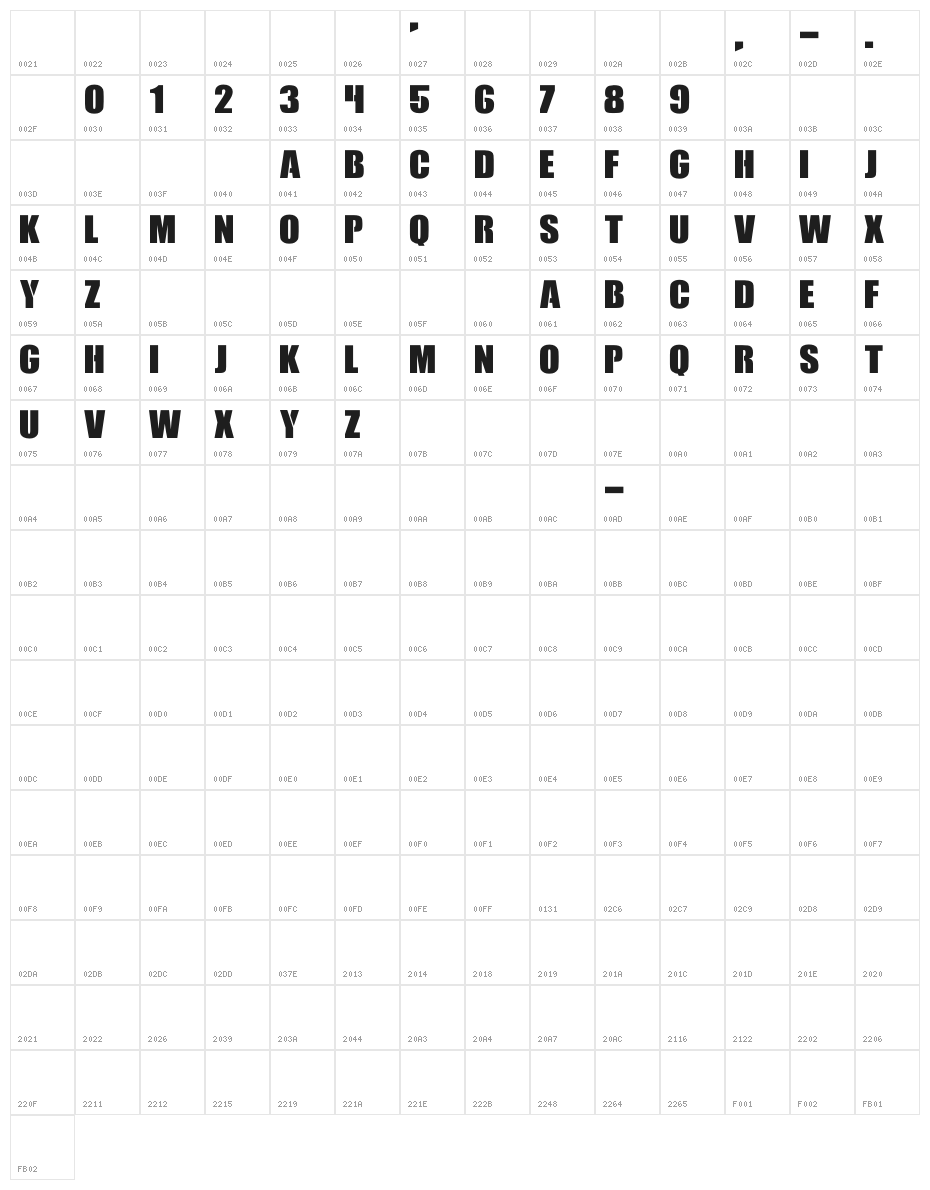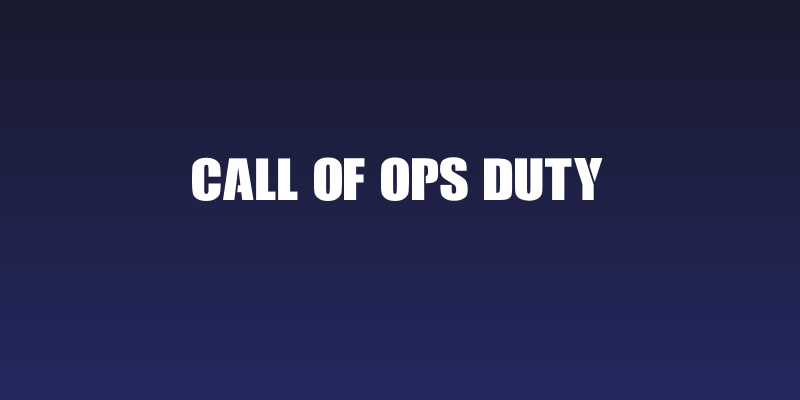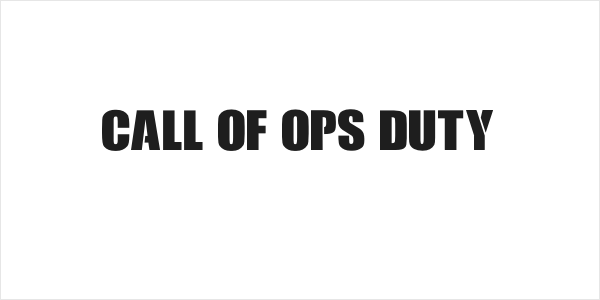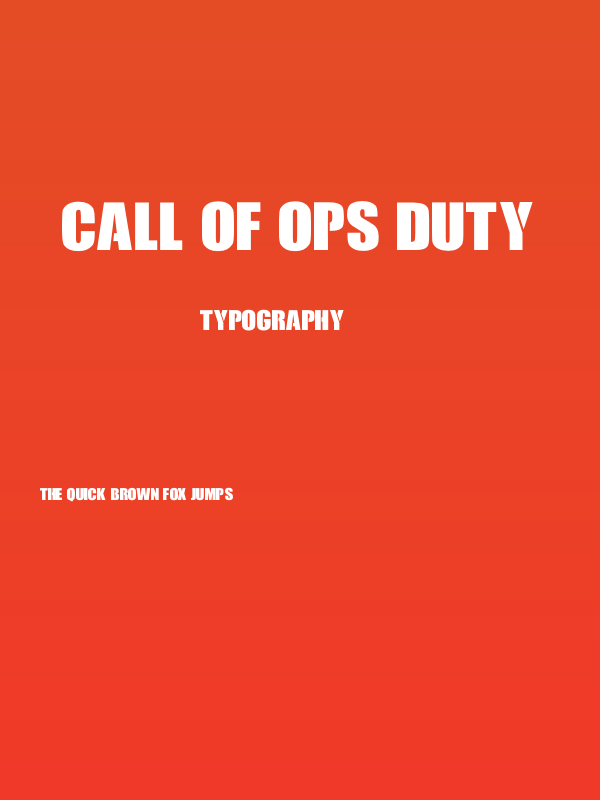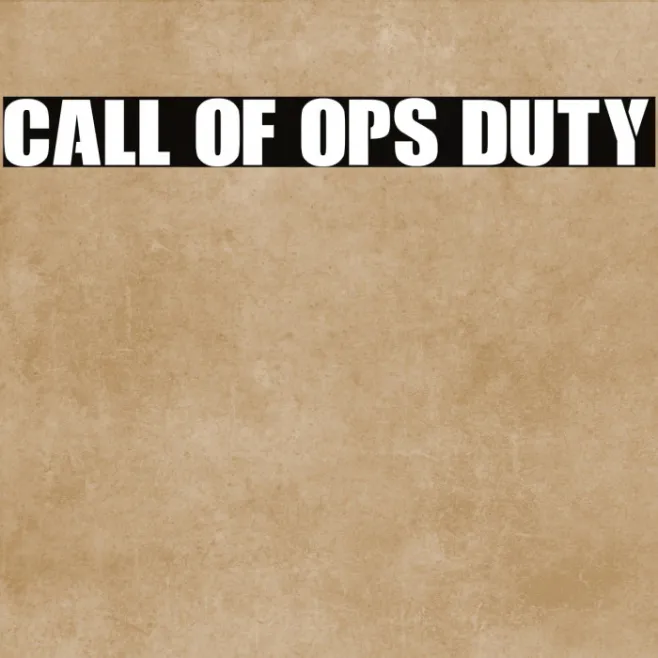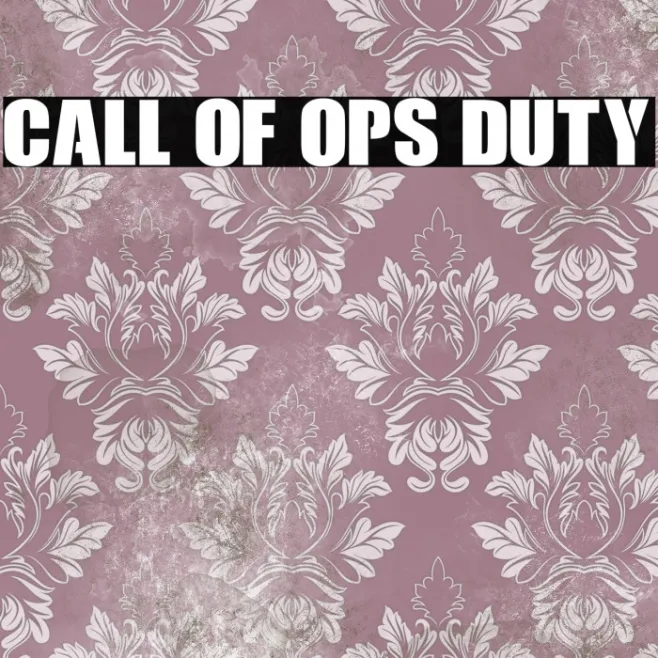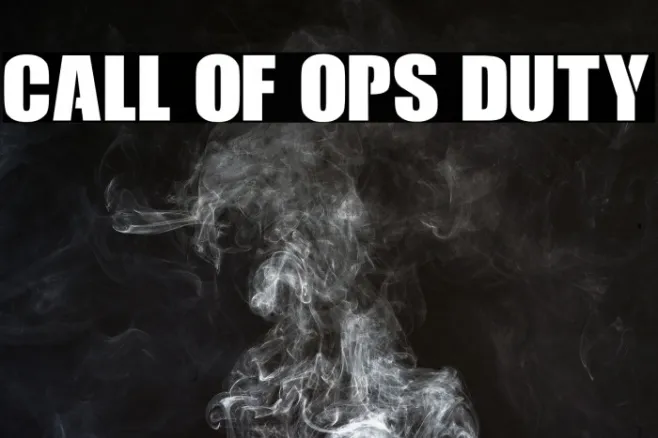
Call Of Ops Duty Font
Call Of Ops Duty Description
This font features bold, blocky characters with a strong, impactful presence. The uppercase letters are uniform in height, with a consistent width that gives a sense of stability and strength. The numbers and special characters maintain this robust style, ensuring a cohesive look across all elements. The strokes are thick and uniform, contributing to a high contrast appearance that makes the text stand out prominently. This font's design is straightforward and assertive, making it ideal for attention-grabbing headlines or titles. Its simplicity and boldness convey a sense of authority and clarity.
| Use Case | Headlines, Posters, Banners |
| Proposed Projects | Ideal for use in headlines, posters, banners, and any project requiring a bold statement. |